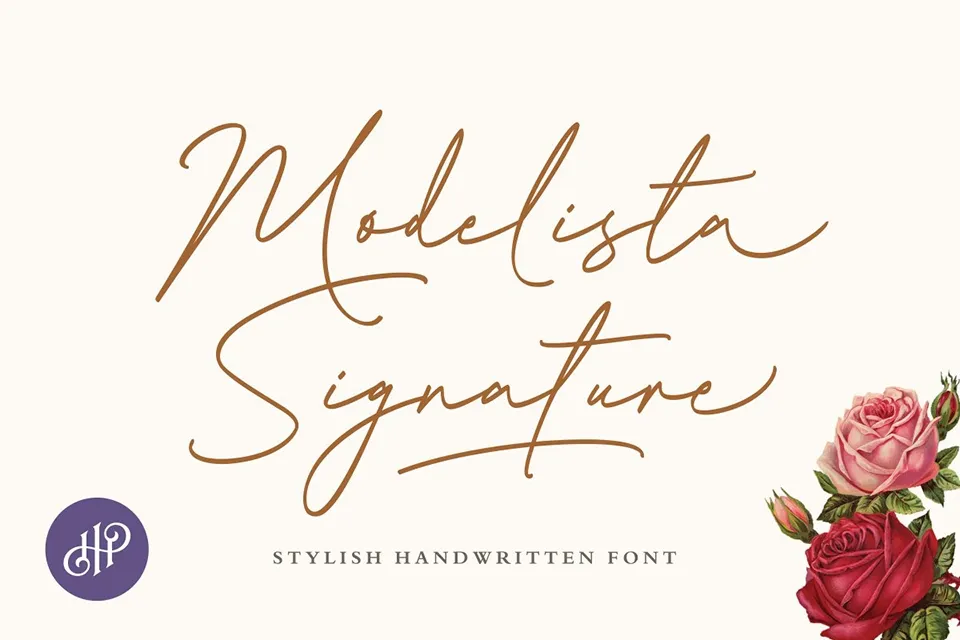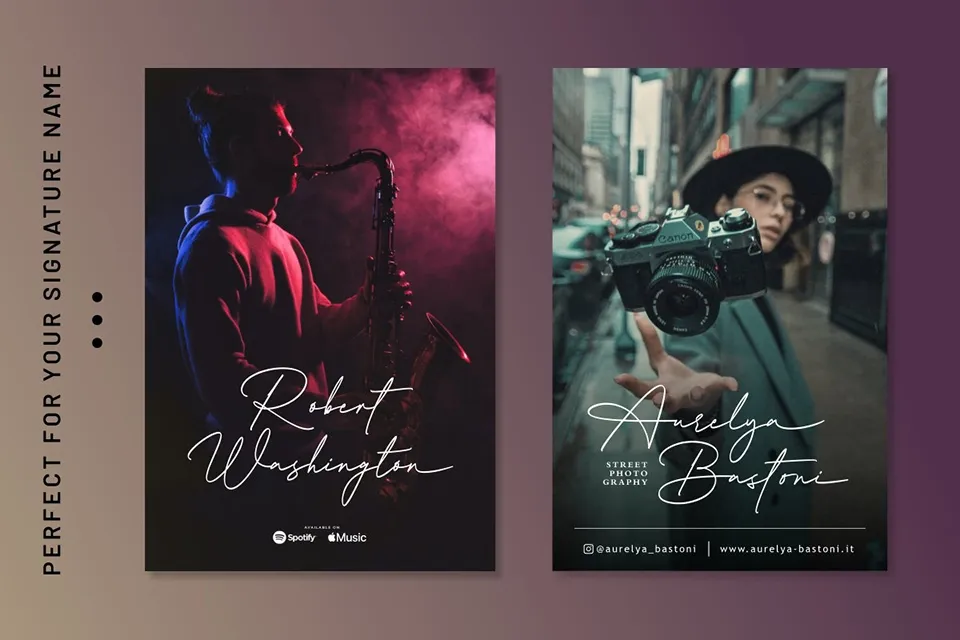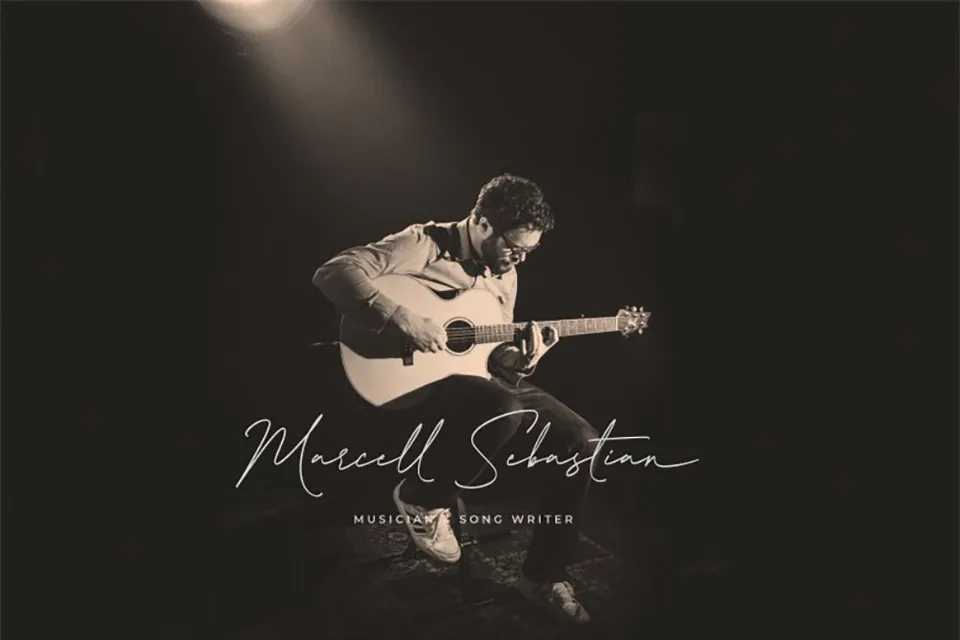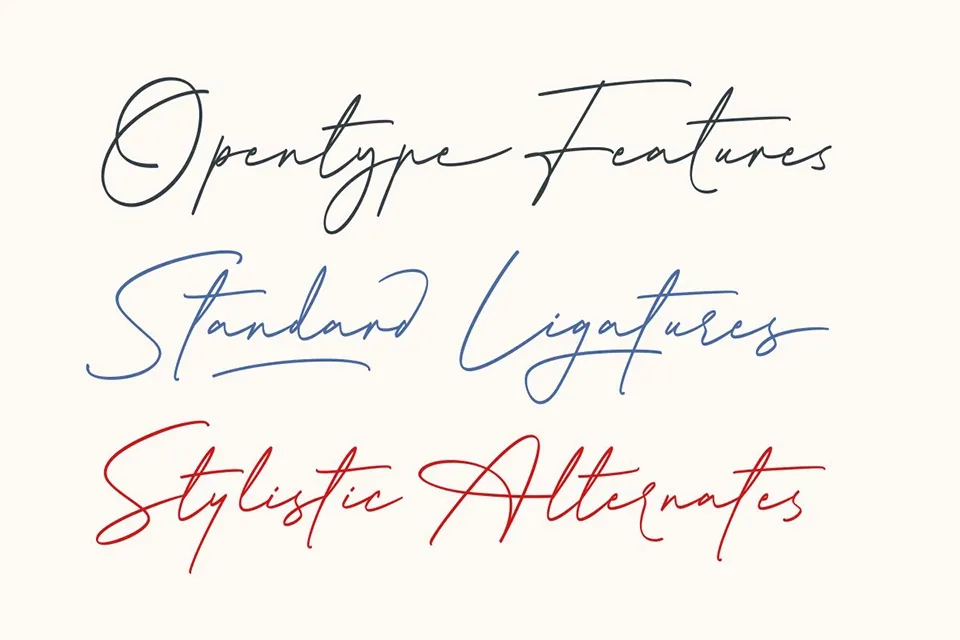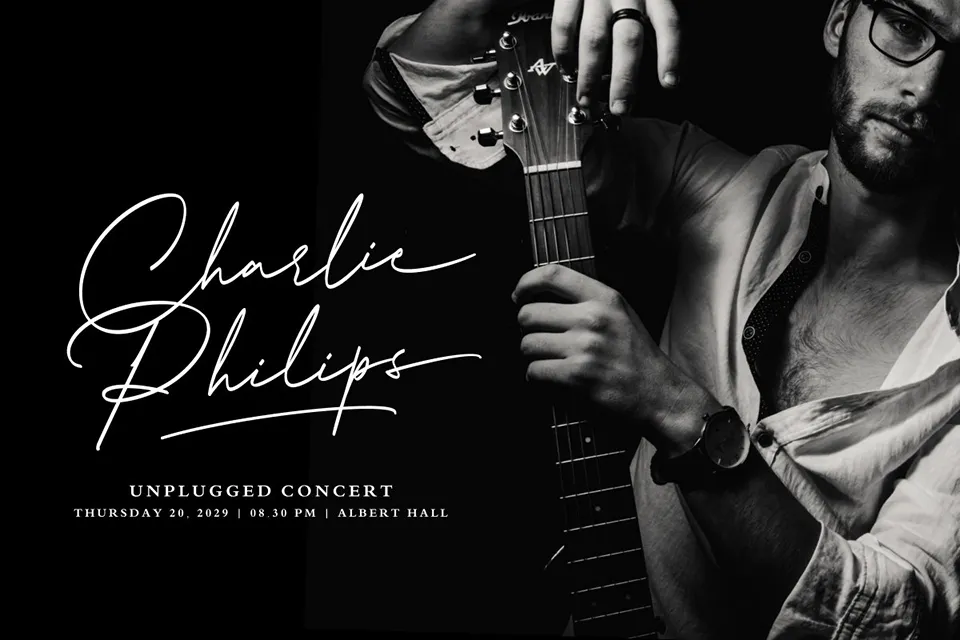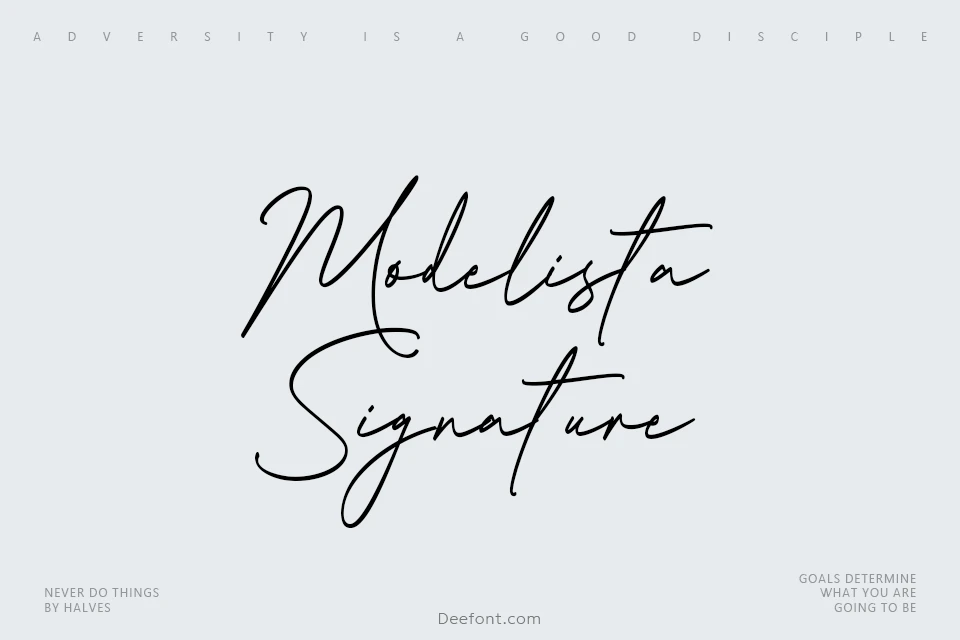
Modelista Signature Font
Modelista Signature Font is a stylish handwritten script typeface that exudes luxury and elegance, featuring unique uppercase heights and beautifully flowing lines. With alternate characters, ligatures, and Latin multilingual support, this font allows you to create truly personalized and sophisticated designs. Modelista Signature Font is perfect for high-end branding, wedding invitations, fashion, beauty, and any project that demands an elegant, signature-style touch.